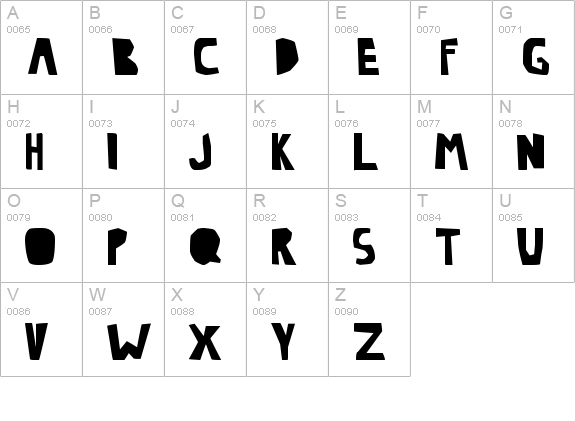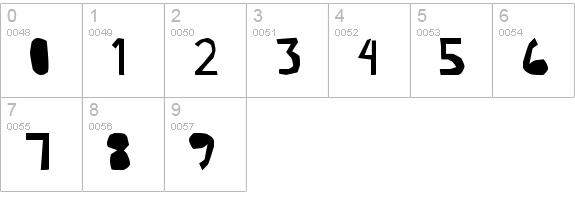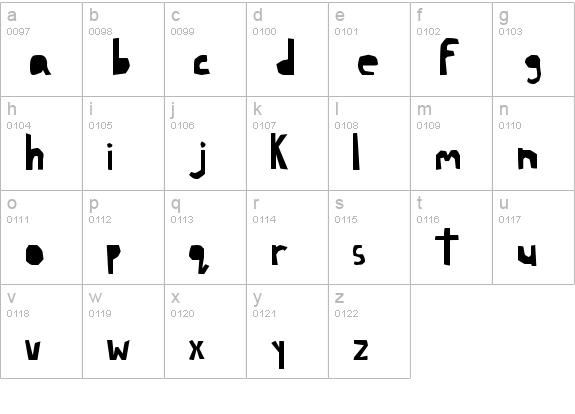
Lazy Font Details
Introducing Lazy font, a whimsical and laid-back typeface perfect for adding a touch of casual charm to your designs. With its playful and carefree aesthetic, Lazy font is ideal for projects that call for a relaxed and friendly vibe. The rounded letterforms and slightly irregular strokes give this font a hand-drawn feel that is both inviting and approachable. Best of all, Lazy font is completely free to download at FontsMarket.com. So go ahead and add a touch of effortless style to your designs with this delightful and easygoing typeface. Whether you're working on a poster, greeting card, or social media graphic, Lazy font will bring a sense of fun and relaxation to your projects. Download it today and let your creativity flow with this charming and free-spirited font.